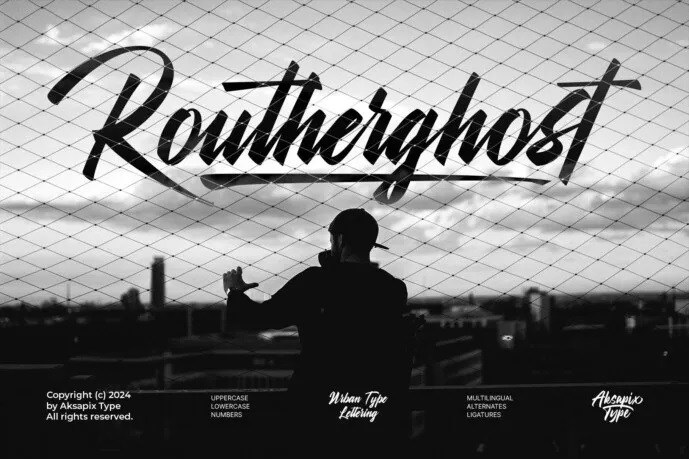
Routherghost Font
Routherghost is a brush font that reflects the vibrant energy of graffiti street art; the thick lines and coarse texture of Routherghost give the designs containing it a very vivid look, it is ideal for designs that has to be loud. Be it graphic designs borrowed from the street art or basic logo designs, fancy billboard ads, or any project requiring punk sensibilities, Rotherghost is your best friend. This is useful for all sorts of design projects from big complicated ones to small simple ones.
Routherghost Brush Script Font